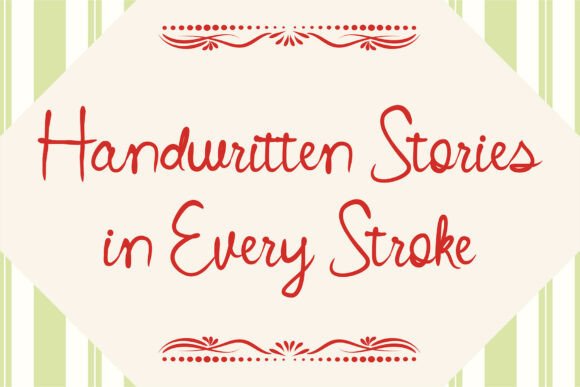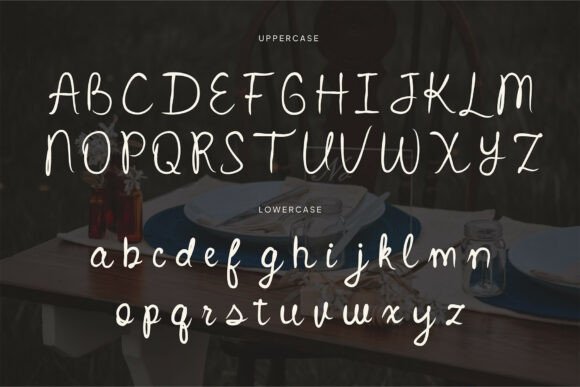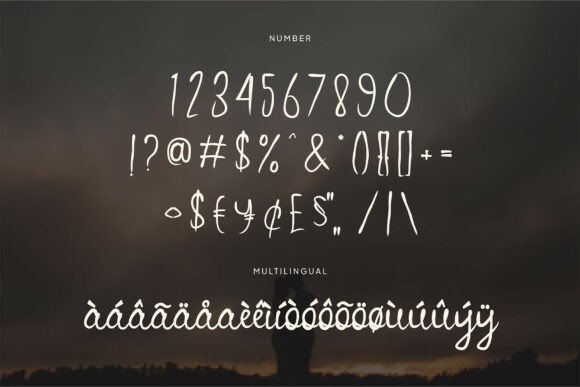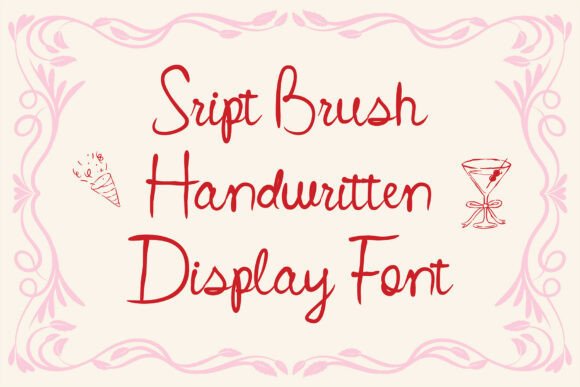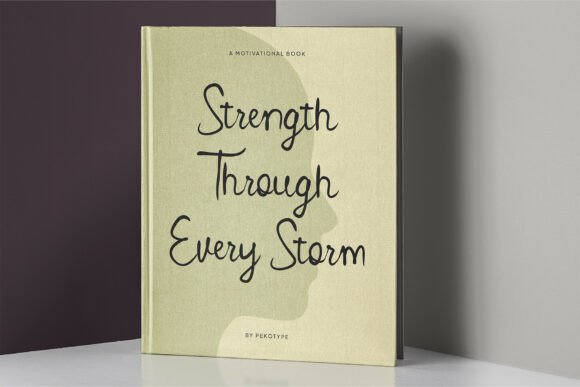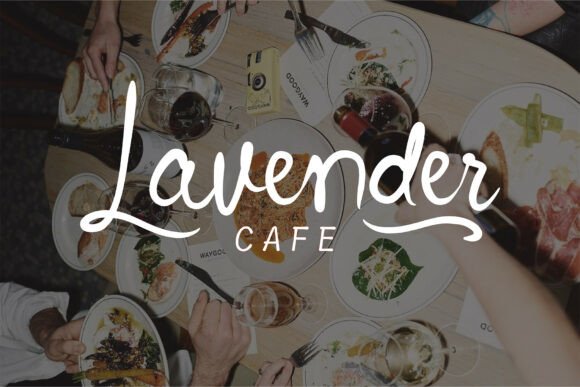
Introduction to Peach Willow Font
As you sit at your desk, surrounded by scattered papers, half-finished designs, and a warm cup of coffee, you’re searching for that perfect font to bring your creative project to life. The moment you lay eyes on Peach Willow Font, you know you’ve found it. Its whimsical, handwritten charm instantly captures the essence of your design, infusing it with a sense of personality and warmth that’s hard to resist.
For designers, the value of a high-quality font like Peach Willow Font lies in its ability to elevate your designs and make them stand out. Whether you’re working on a branding project, creating social media graphics, or designing product packaging, this font adds a touch of elegance and playfulness that’s simply irresistible. Plus, with its transparent background, you can easily place it over any image or design, making it a versatile design resource that’s sure to become a favorite.
Key Features of Peach Willow Font
- High-quality, elegant script font perfect for creative projects, wedding invitations, and other design needs.
- Features a unique, cursive style with a touch of whimsy, ideal for adding a personal touch to any design project.
Honest Review: Peach Willow Font
I recently stumbled upon the Peach Willow Font, a beautiful and elegant script font that’s perfect for any creative project. The font features a beautiful, flowing design with subtle nuances that make it perfect for titles, headings, and even body text.
- High-quality design: The Peach Willow Font is meticulously crafted with attention to detail, making it a joy to work with.
- Limited font weights: The font only comes in a few weights, which may limit its use in certain projects.
- Not suitable for large body text: While the font is perfect for titles and headings, it may not be the best choice for large blocks of body text due to its flowing design.
Overall, I’m thoroughly impressed with the Peach Willow Font. Its beautiful design, high-quality craftsmanship, and free availability make it a fantastic design resource for any project. While it may have some limitations, I highly recommend giving it a try for your next creative project.
The Peach Willow Font is ideal for use in wedding invitations, branding materials, and other design projects that require a touch of elegance and sophistication. It’s also a great choice for creating custom graphics and illustrations.